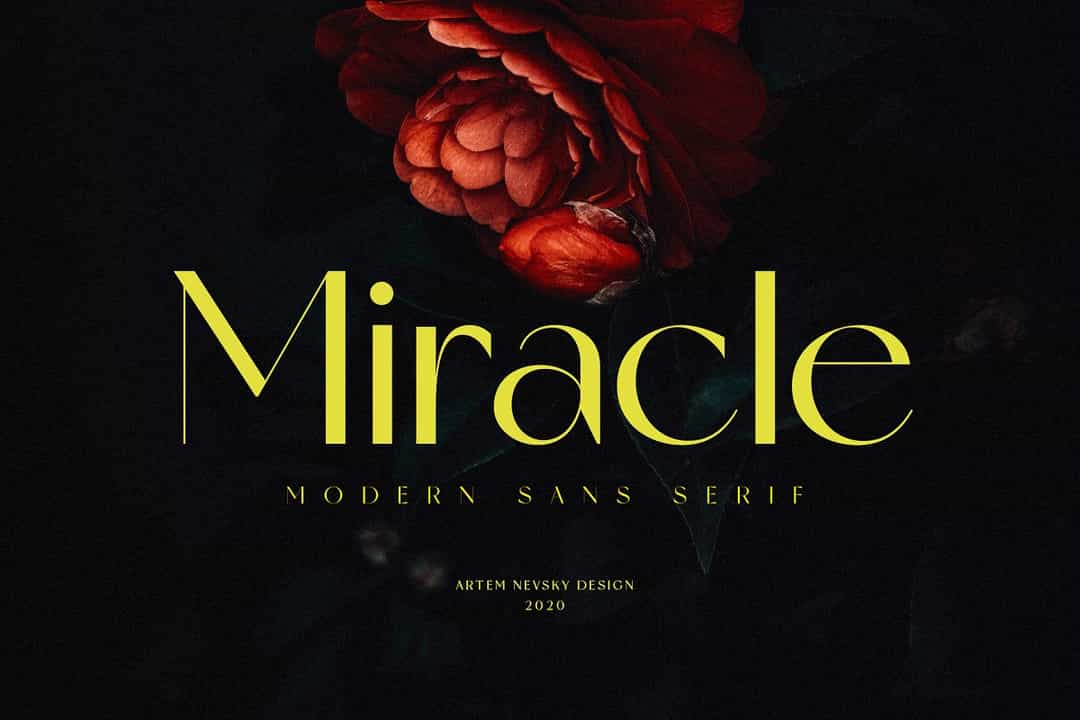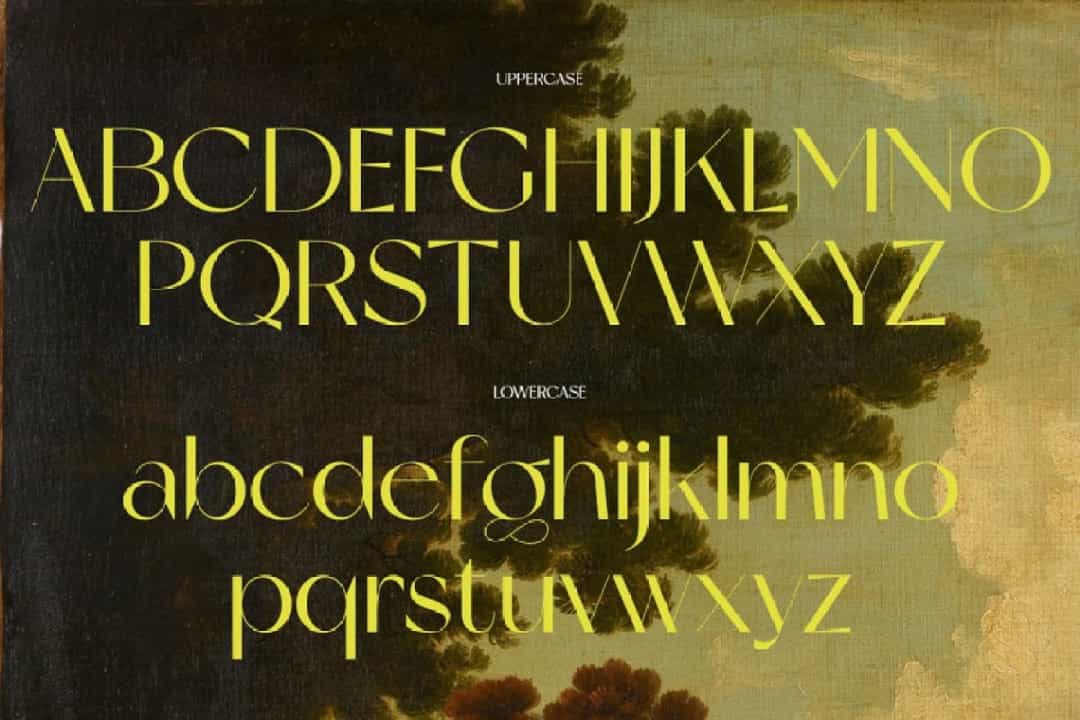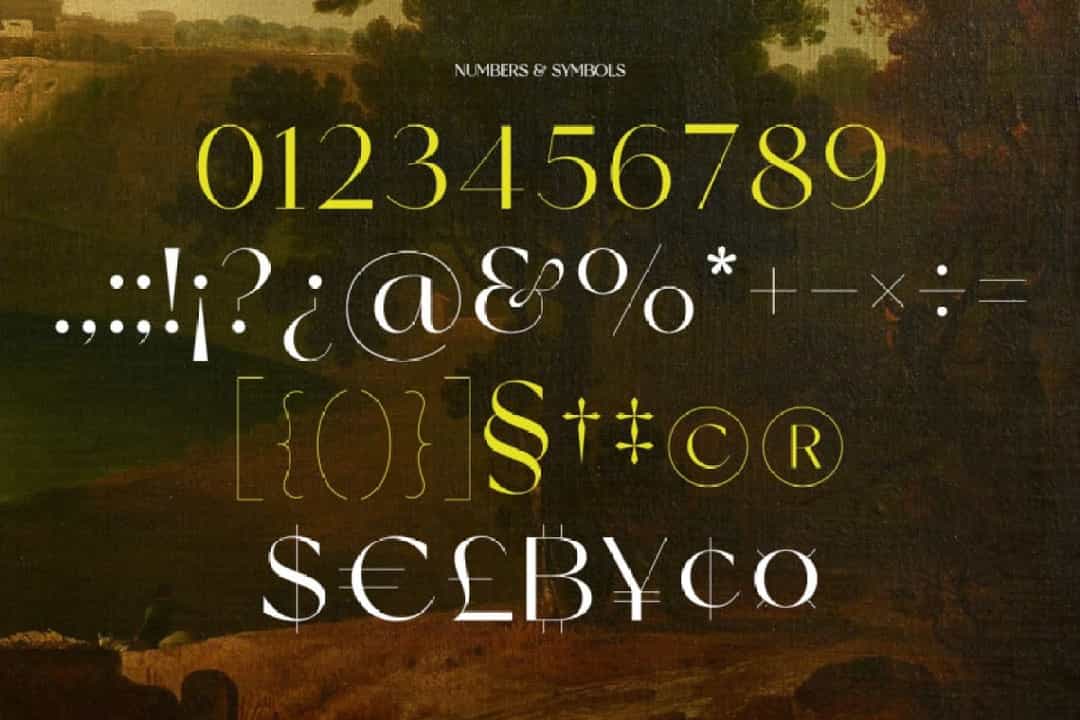
Miracle which is designed by Nevsky Type has a classy and sophisticated look without any use of serif fonts. Suitable for posters and web designs as well as badges and branding, logos and illustrations among others, Miracle was created for posters and illustrations in particular.